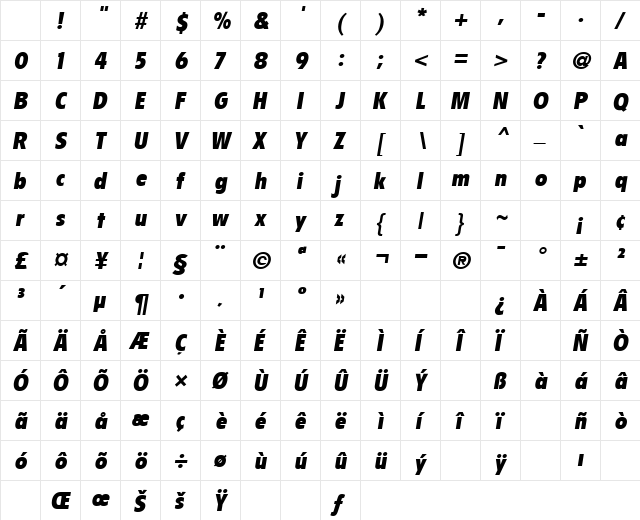
Pace is a composed and adaptable typeface that performs quietly and consistently across a wide range of design contexts. The slanted form adds forward momentum and visual energy.
Pro Tip: Use Pace for emphasis, pull quotes, and subheadings where its slanted energy can add rhythm to the layout.